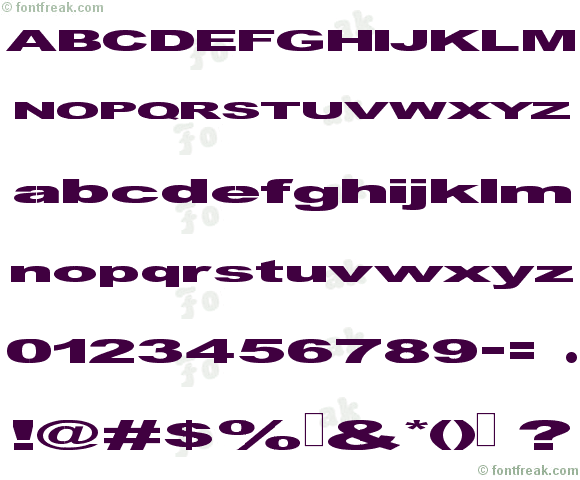
GF Vienna heavy
The Vienna font by Lorenz Goldnagl is a captivating display typeface that embodies a unique blend of elegance and modernity. As a freeware font, it offers accessibility to designers and enthusiasts alike, making it a valuable addition to any font collection. The visual characteristics of the Vienna font are marked by its heavy stroke weight and moderate contrast, creating a bold yet refined appearance. The spacing is thoughtfully crafted, allowing for clarity and legibility, while decorative elements enhance its distinctive style, making it stand out in various applications.
This font is particularly well-suited for use cases such as wedding invitations, where its elegant design can evoke feelings of romance and celebration. Additionally, Vienna works beautifully for movie posters, adding a touch of sophistication that grabs attention. It is also ideal for restaurant menus, where the bold letters can highlight special dishes or promotions, creating a memorable dining experience. Graphic designers and content creators will find the Vienna font especially appealing for branding projects, as it conveys a sense of professionalism and creativity.
The target audience for the Vienna font includes graphic designers, small business owners, and content creators who seek to elevate their visual communications. Its versatility allows it to fit seamlessly into a variety of design contexts, from elegant to contemporary.
What truly sets the Vienna font apart is its ability to combine functionality with aesthetic appeal. Its heavy weight commands attention while remaining approachable, making it perfect for both print and digital media. The Vienna font free download option ensures that anyone can access this striking typeface and incorporate its unique charm into their projects. Whether you're designing a logo, crafting a poster, or creating invitations, Vienna is sure to bring a touch of elegance to your work.